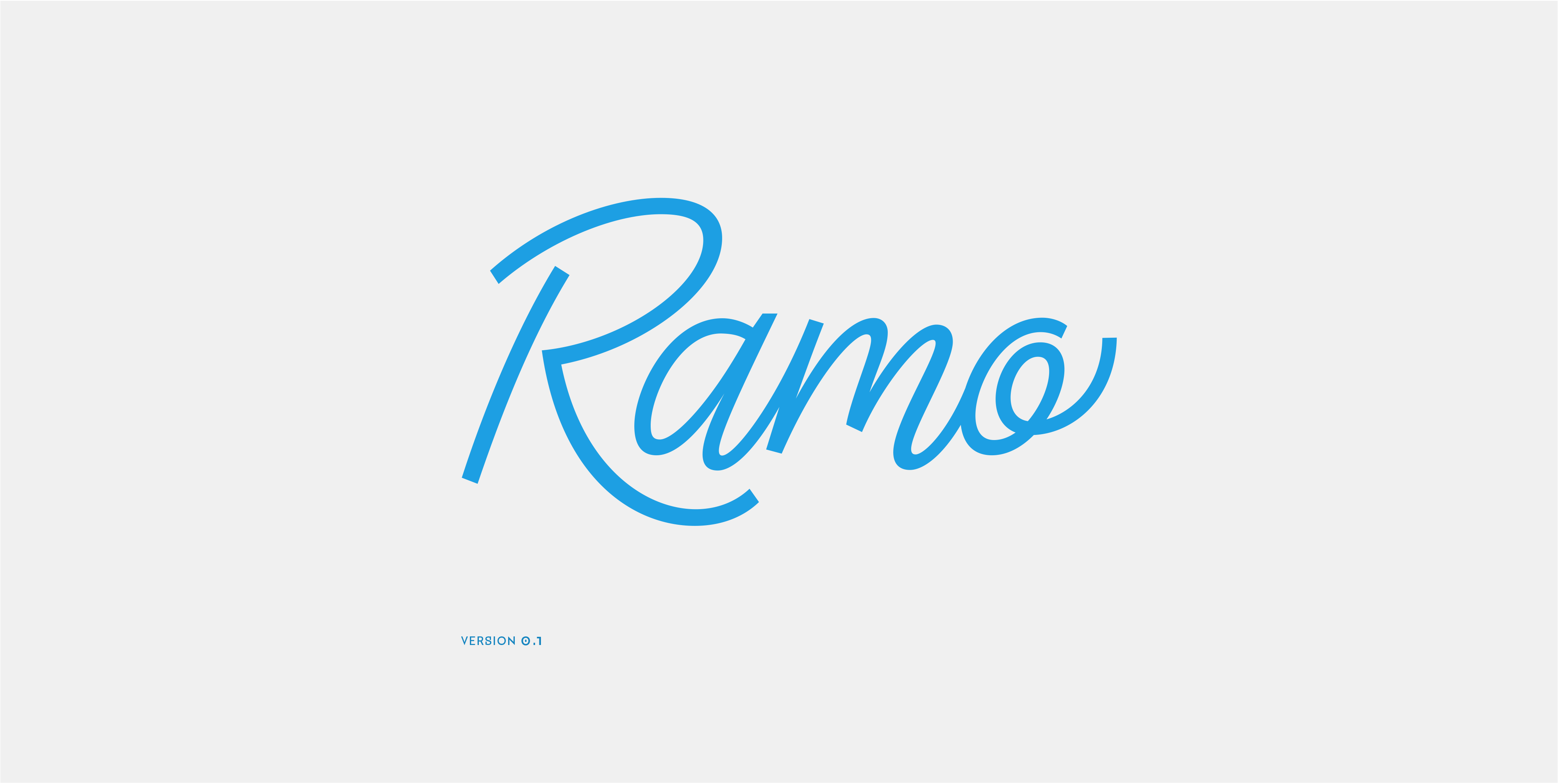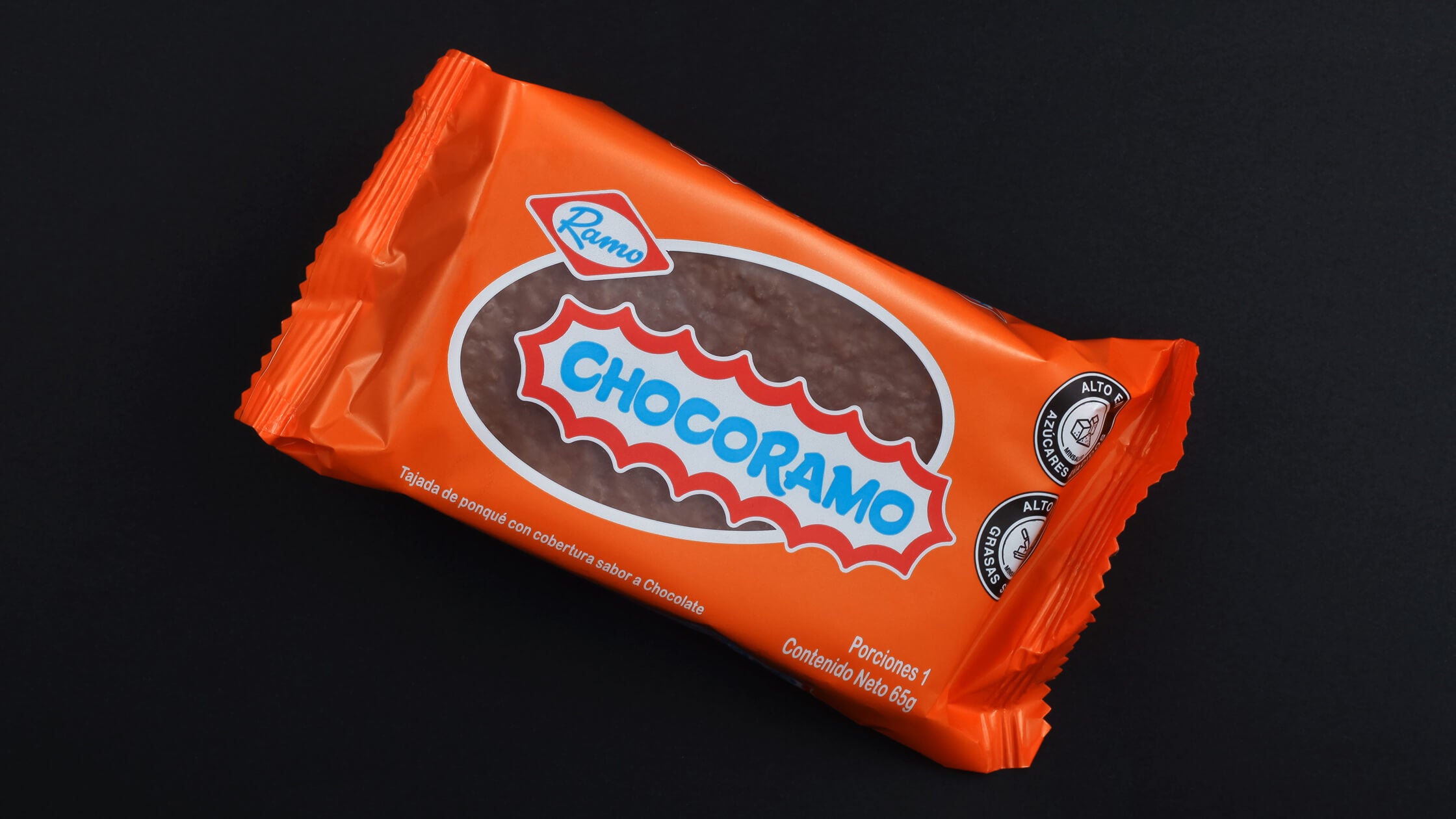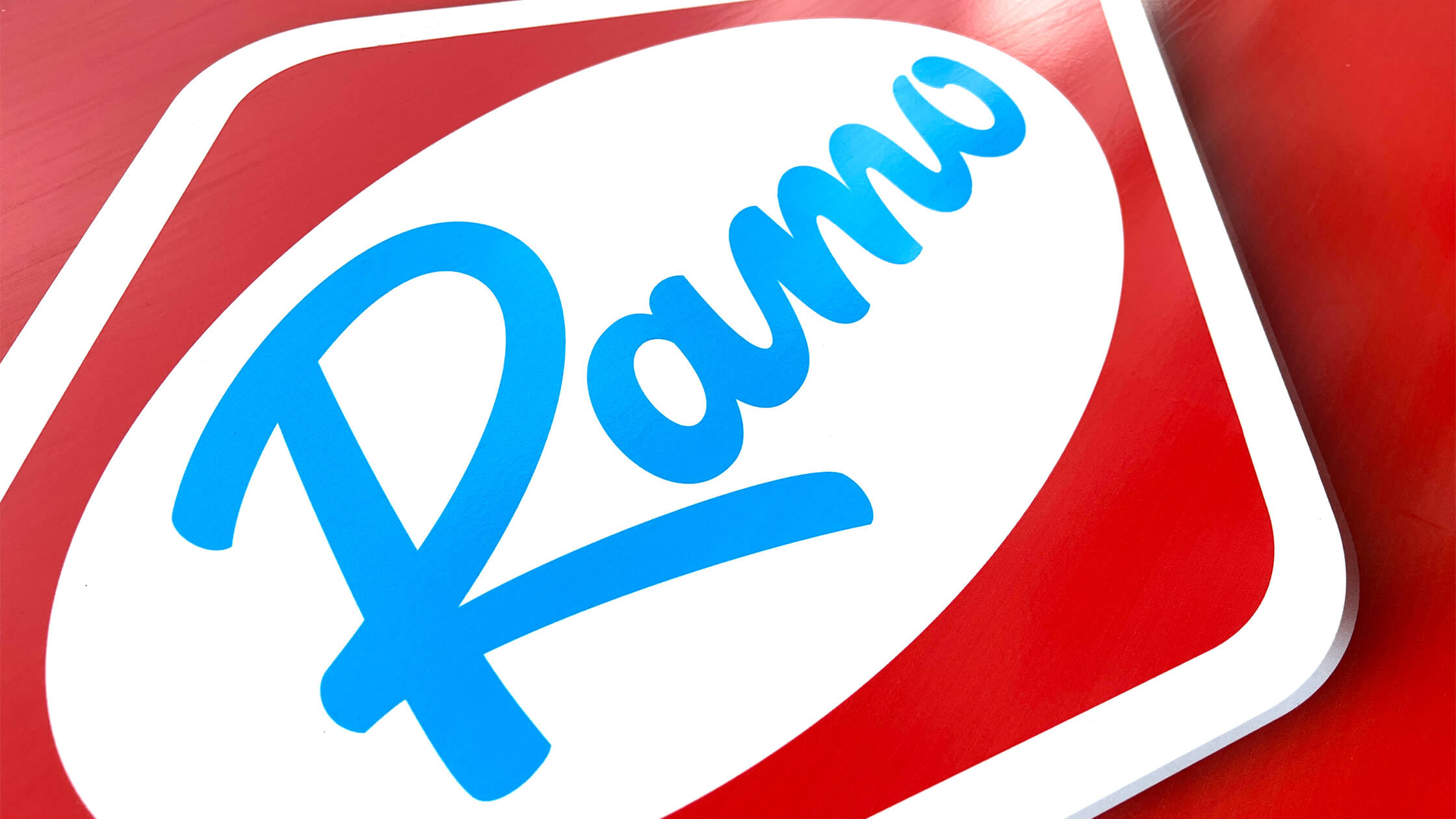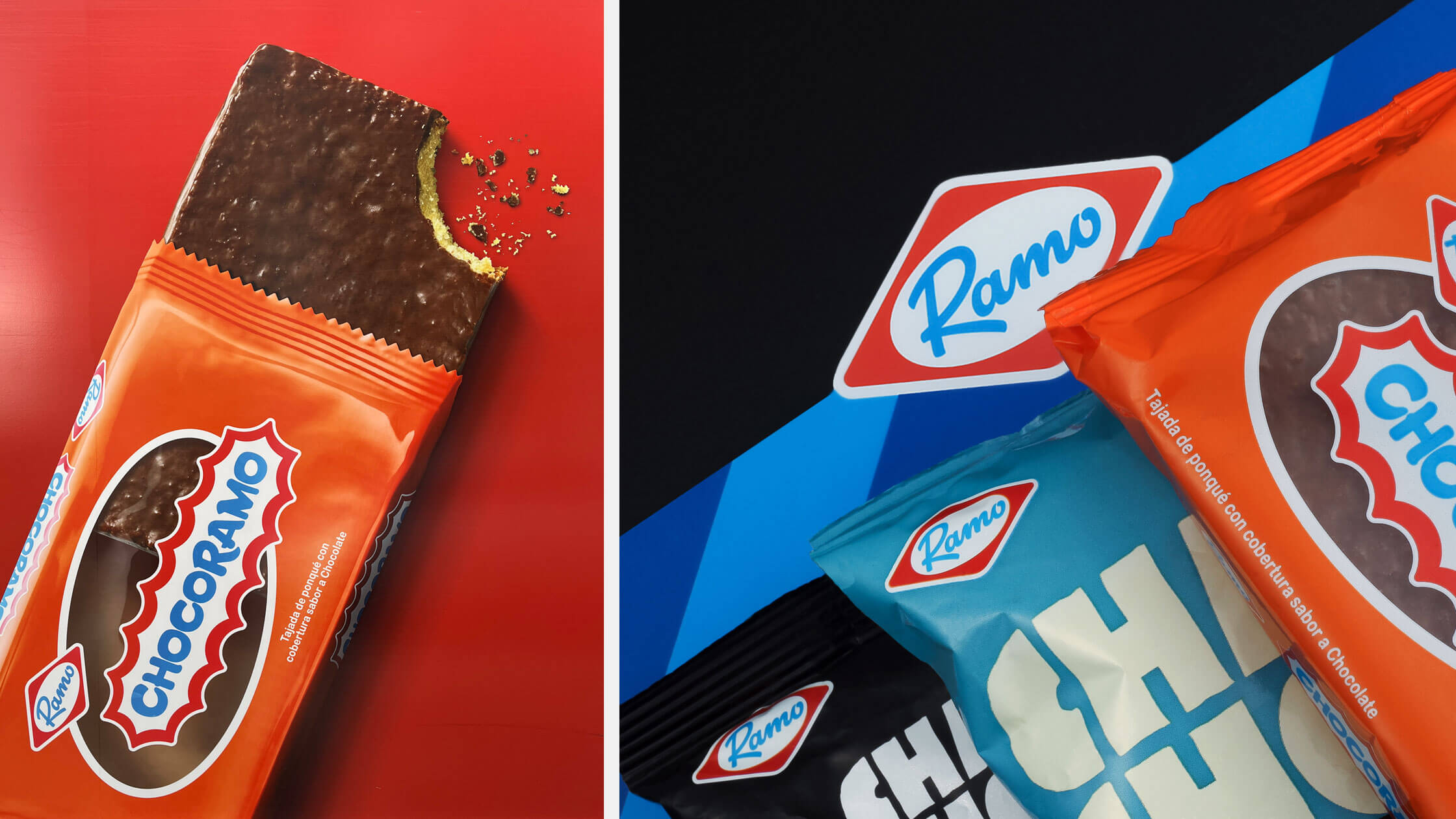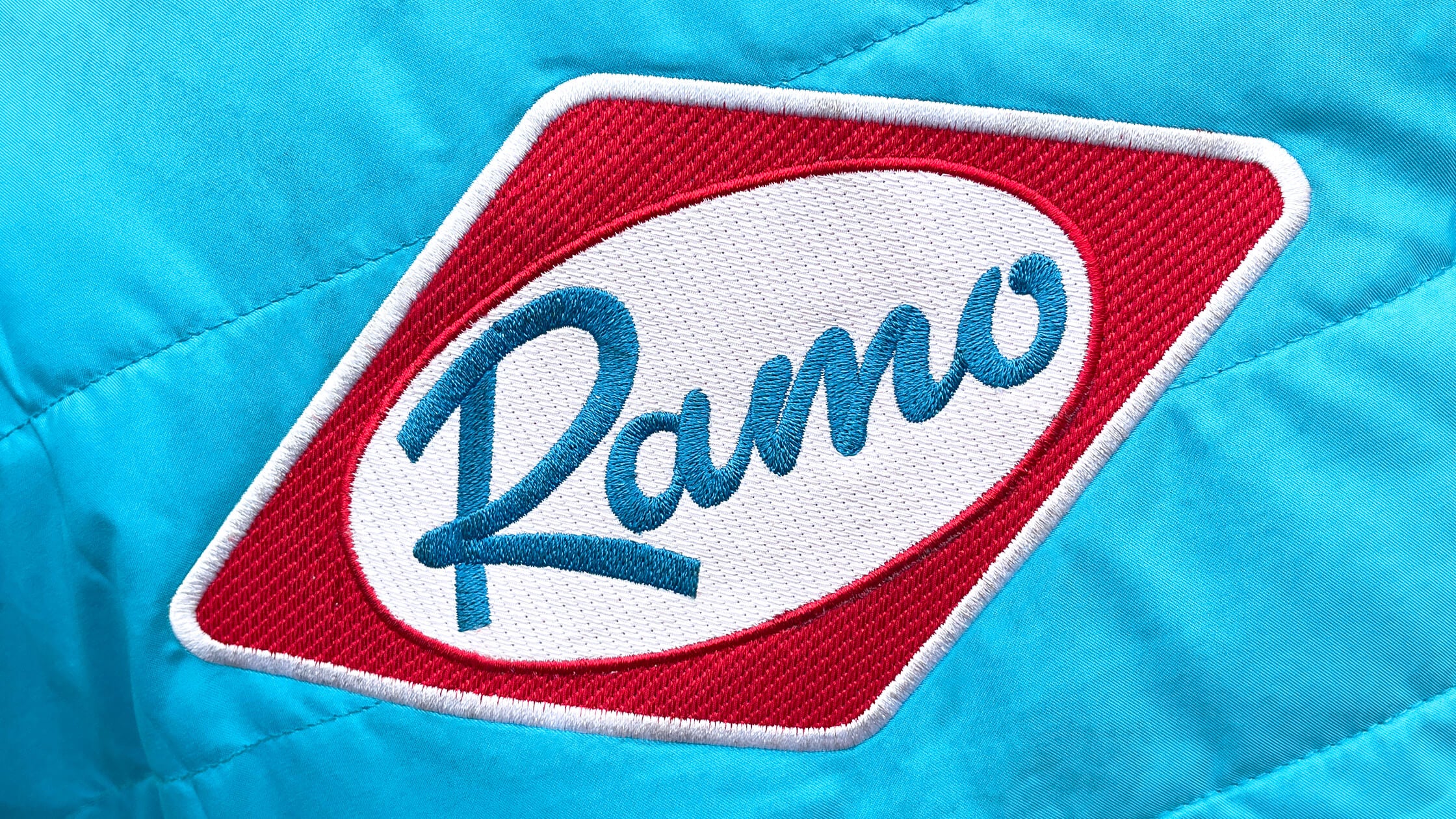
eng // A custom logo was created for the traditional Colombian food brand Ramo. The work was done in collaboration with the design studio Misty Wells & Zea, where the strategy for revitalizing the brand identity system and its entire brand architecture was developed. The project focused on maintaining the representative features of the logo, such as the container, colors, and the style of the letters used. The letterforms were refined to give the logo a more contemporary look, correcting everything from calligraphic principles to the spacing and thickness of each letter.
esp // Se diseñó un logotipo personalizado para la reconocida marca colombiana de alimentos Ramo. El trabajo se llevó a cabo en colaboración con el estudio de diseño Misty Wells & Zea, donde se desarrolló una estrategia para revitalizar el sistema de identidad de la marca y toda su arquitectura. El proyecto se centró en conservar los elementos clave del logotipo, como su forma, colores y estilo tipográfico. Se refinó el diseño de las letras para darle un aspecto más contemporáneo, ajustando desde los principios caligráficos hasta el espaciado y grosor de cada letra.